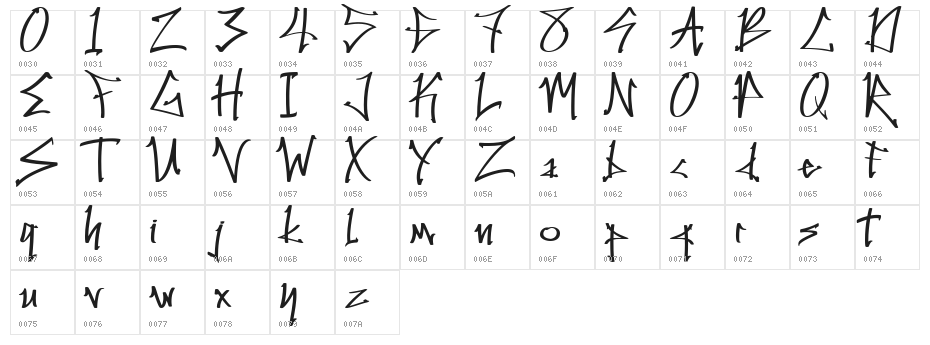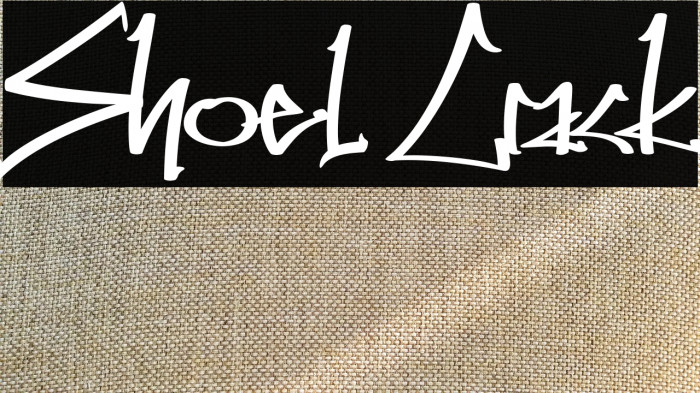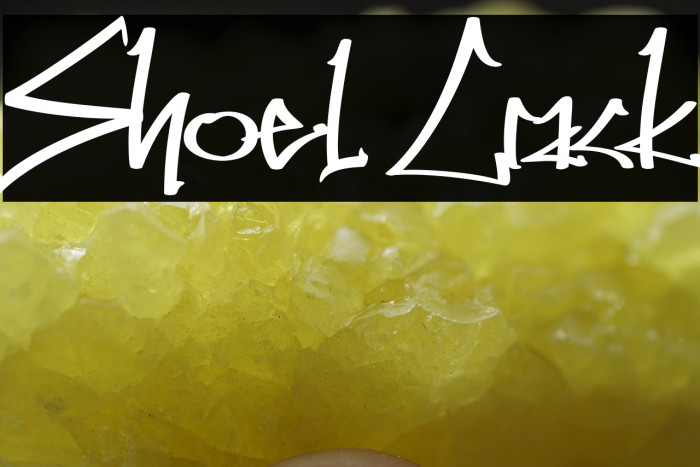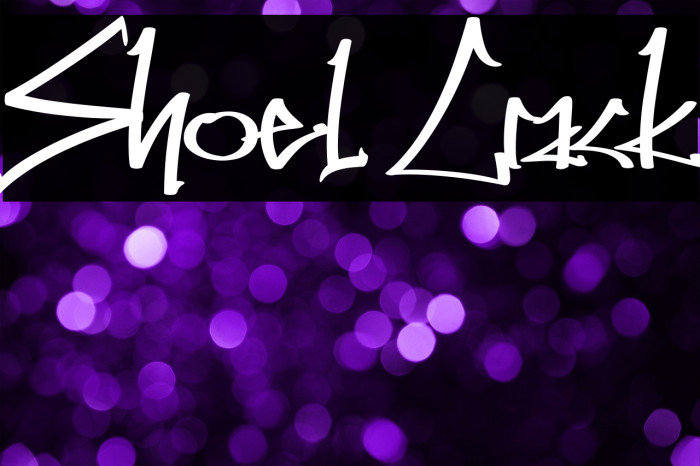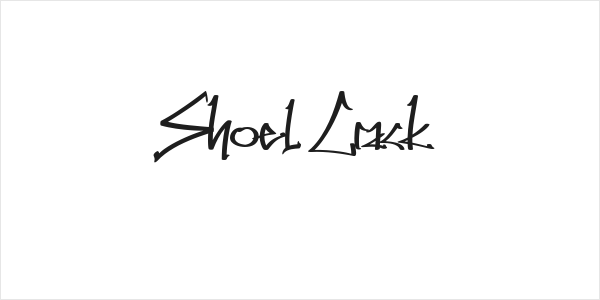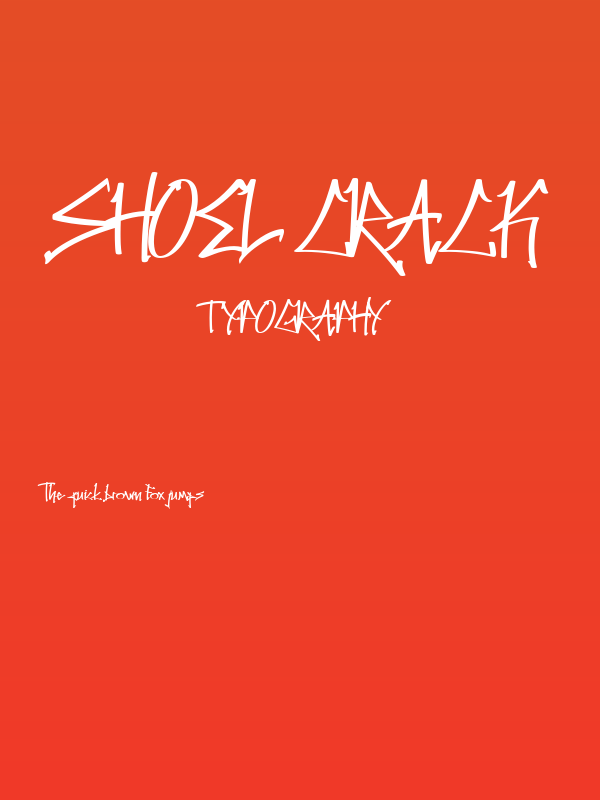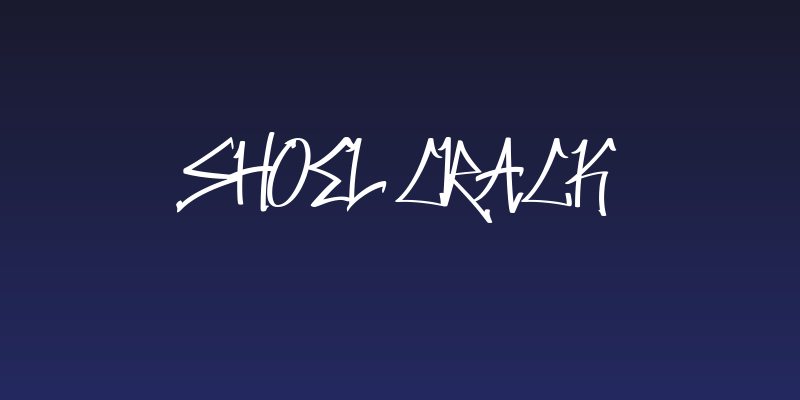
Shoel Crack Font
Shoel Crack Description
This font features a dynamic and edgy handwritten style, characterized by sharp angles and elongated strokes. The letters are highly stylized, with a graffiti-like appearance that conveys a sense of movement and energy. The uppercase and lowercase letters maintain a consistent style, with exaggerated curves and a slightly chaotic arrangement that adds to its unique charm. The numbers and special characters follow the same design principles, ensuring a cohesive look across all glyphs. This font is ideal for projects that require a bold and unconventional aesthetic.
| Proposed Projects | Ideal for street art designs, urban-themed posters, music album covers, and edgy branding projects. |